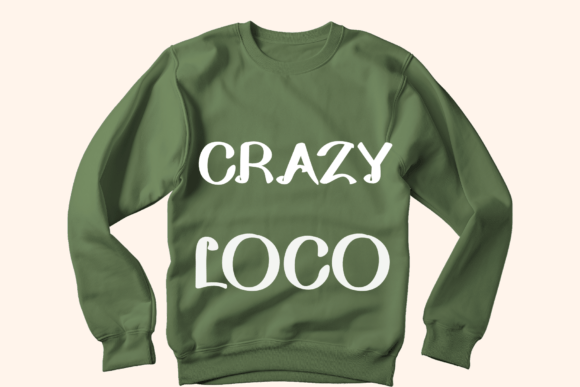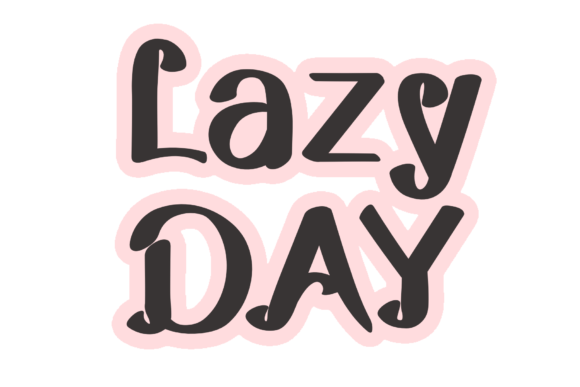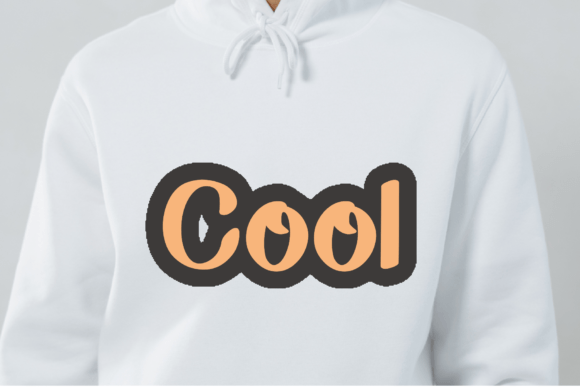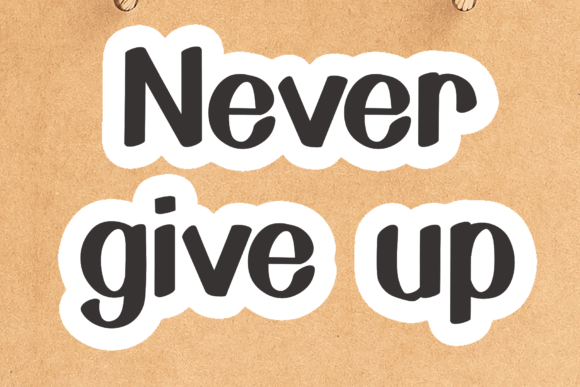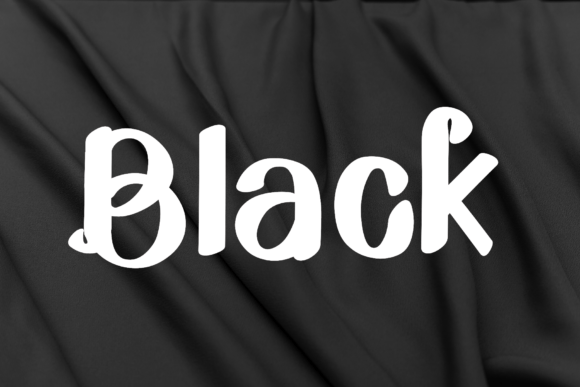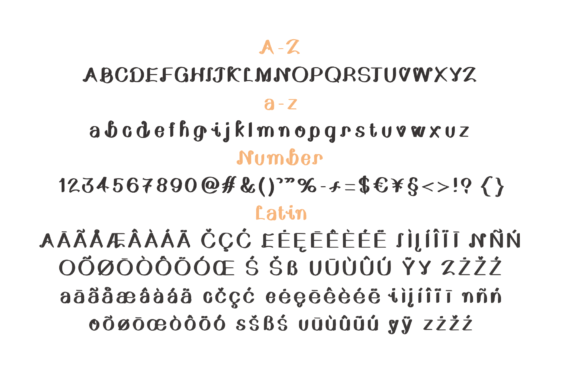
Introducing Clasper Font: The Ultimate Display Font for Friendly Designs
Are you tired of using the same old fonts for your designs, crafts, and digital projects? Look no further! Clasper Font is here to revolutionize the way you approach typography. This childish, easy-to-read display font is designed to convey impeccable friendliness, making it perfect for a wide range of applications. Whether you’re a designer, crafter, or simply someone who loves to create, Clasper Font is sure to become your new favorite go-to font.
The Characteristics of Clasper Font
So, what makes Clasper Font so special? For starters, its childish and playful design is sure to capture the attention of your audience. The font’s friendly and approachable vibe makes it perfect for designs that require a personal touch. Additionally, Clasper Font is incredibly easy to read, making it ideal for digital designs, presentations, and even greeting cards.
Uses for Clasper Font
Clasper Font is an incredibly versatile font that can be used in a variety of contexts. Here are just a few ideas to get you started:
- Crafts: Use Clasper Font to add a personal touch to your handmade crafts, such as knitted items, scrapbooking, and DIY jewelry.
- Digital Design: Clasper Font is perfect for digital designers who want to create friendly and approachable designs for their clients. Use it for social media graphics, website headers, and more.
- Presentations: Add a touch of personality to your presentations with Clasper Font. It’s perfect for titles, headings, and emphasis text.
- Greeting Cards: Create personalized and friendly greeting cards for any occasion using Clasper Font.
Why Choose Clasper Font?
With so many fonts available, why choose Clasper Font? Here are just a few reasons why designers and crafters love this font:
- Unique Design: Clasper Font has a unique and playful design that’s sure to stand out from the crowd.
- Ease of Use: This font is incredibly easy to read and use, making it perfect for designers and crafters of all skill levels.
- Friendliness: Clasper Font conveys a sense of friendliness and approachability, making it perfect for designs that require a personal touch.
- Versatility: This font can be used in a wide range of contexts, from digital design to crafts and presentations.
Tips for Using Clasper Font
Here are a few tips for getting the most out of Clasper Font:
- Experiment with Sizes: Clasper Font looks great in a variety of sizes, from large headings to smaller text.
- Pair with Other Fonts: Try pairing Clasper Font with other fonts to create a unique and visually appealing design.
- Use for Emphasis: Use Clasper Font to add emphasis to important text, such as headings and titles.
In conclusion, Clasper Font is a versatile and friendly display font that’s perfect for designers, crafters, and anyone who loves to create. With its unique design, ease of use, and friendliness, this font is sure to become your new go-to font for all your design needs. So why wait? Give Clasper Font a try today and see the difference it can make in your designs!